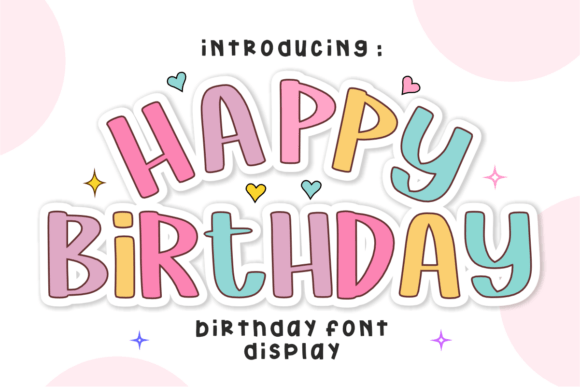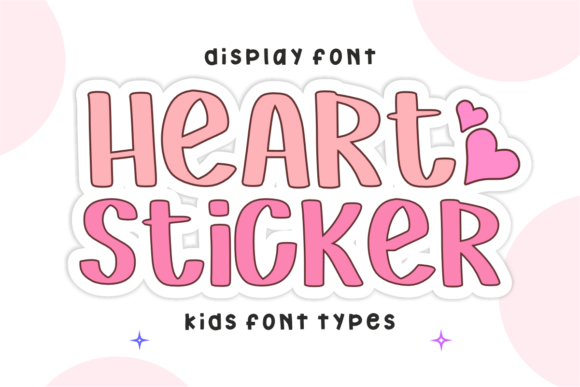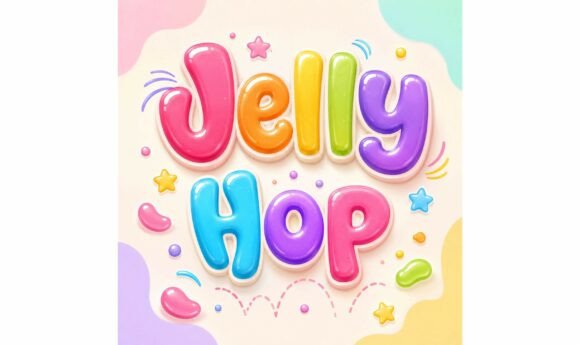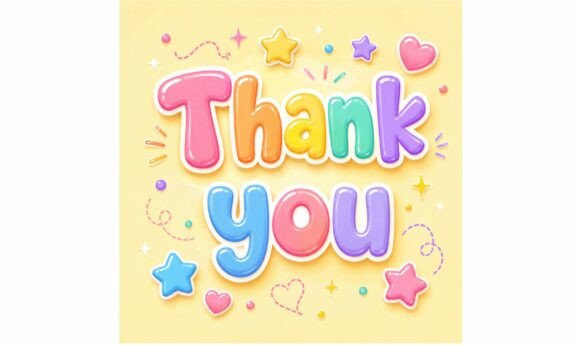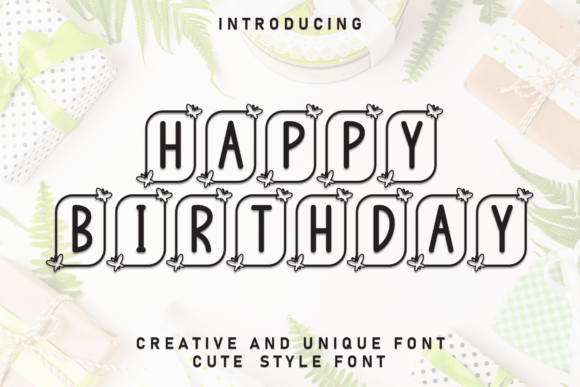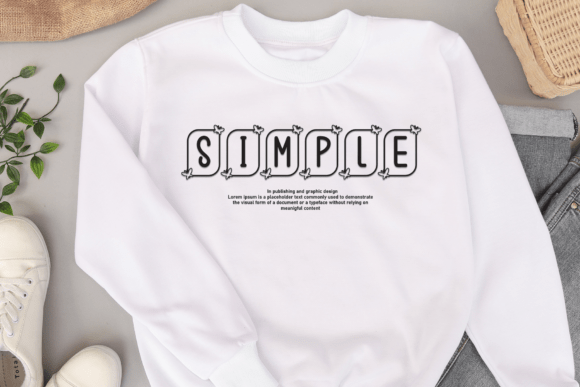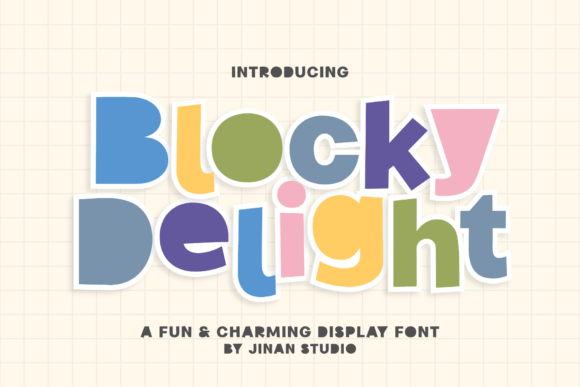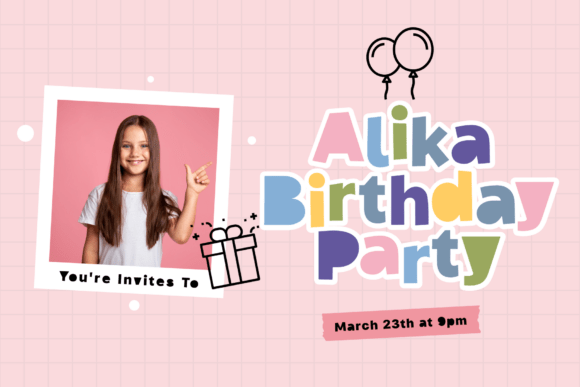
17 Best Happy Birthday Fonts to Celebrate in Style
Designing the perfect birthday celebration starts with the right typography. Whether you are crafting personalized greeting cards, vibrant party invitations, or festive social media graphics, your choice of lettering sets the tone. A well-selected typeface can transform a simple design into a memorable masterpiece. To help you find the perfect match, we have curated a collection of 17 exceptional designs ideal for any celebratory project.
Elevate Your Designs With These Happy Birthday Fonts
Choosing the right style is crucial for capturing the joy of a birthday. From bold and bubbly to elegant and handwritten, these options provide endless creative possibilities for your next design task.
Happy Birthday Font
This playful and festive font is perfect for creating greeting cards, party designs, and children’s projects. Its unique style adds a touch of joy and energy to any creative work.
Jelly Hop Font
Jelly Hop is a playful and energetic typeface, making it an excellent choice for crafting vibrant greeting cards and festive party designs. Its whimsical character shapes bring an immediate sense of joy and charm to any celebratory project.
Happy Birthday Font
This playful and festive font is perfect for crafting birthday cards, party decorations, and unique display lettering. Its stylish design brings a joyful, casual charm to any creative project you undertake.
Blocky Delight Font
This fun and playful font is perfect for creating cheerful designs, adding a joyful and bold aesthetic to your creative projects. Its bubbly, chunky letters make it an excellent choice for festive party invitations and custom greeting cards.
Thick Magic Font
Thick Magic is a playful and chunky typeface that is perfect for crafting festive invitations, party decor, and headings. It provides the ideal weight for a prominent, celebration-ready look.
Happy Birthday Font
This playful handwritten typeface is perfect for creating greeting cards, decorating children’s parties, and adding fun accents. Its carefree style adds a personal touch to your projects.
Kiddy Pop Sans Font
Kiddy Pop Sans is a playful and energetic typeface perfect for vibrant designs and children’s party invitations. Its friendly aesthetic adds a sense of joy and whimsy to any project.
Happy Birthday Font
This playful and festive font is perfect for crafting invitations, greeting cards, and vibrant party decorations. Its lighthearted and joyful style instantly brings a celebratory atmosphere.
Happy Monkey Font
This playful and cheerful typeface is perfect for crafting eye-catching birthday cards, children’s party invitations, and fun themes. It adds a layer of personality and charm to any project.
Birthday Font
This charming handwritten typeface is perfect for creating greeting cards and gift designs. Its design is balanced to convey warmth and celebration effortlessly.
Happy Birthday Font
This playful and festive font is perfect for crafting greeting cards, decorating parties, and creating unique graphic designs. Its friendly personality makes it a versatile choice.
Chunky Smile Font
Chunky Smile is a playful, bold typeface that captures a cheerful aesthetic. It is an excellent choice for party invitations and festive celebratory designs that require impact.
Playful Bold Font
This vibrant and energetic typeface is perfect for crafting creative, bold designs that add a festive flair to every invitation or greeting card.
Claping Ballon Font
This playful and bubbly typeface is the perfect accent for festive designs. Its soft, balloon-like aesthetic brings an atmosphere of joy and lighthearted fun to any project.
Bold Pastel Font
This playful and dimensional font is perfect for creating festive lettering and party decor for birthdays. Its soft, rounded shapes add a joyful and carefree vibe.
Pebbly Happy Font
This playful and charming typeface is perfect for creating festive cards and decorations. Its friendly style brings a joyful and effortless vibe to all your creative projects.
Black Birthday Font
This stylish and expressive font is perfect for crafting festive invitations and banners. Its unique character makes headlines stand out with elegance.
Conclusion
Selecting the perfect typeface is the final touch needed to bring your birthday visions to life. Whether you prefer whimsical, chunky, or elegant scripts, this collection of 17 fonts ensures you have the right tools for every celebration. Happy designing!